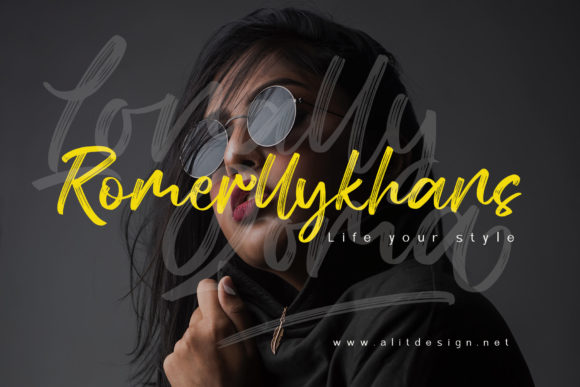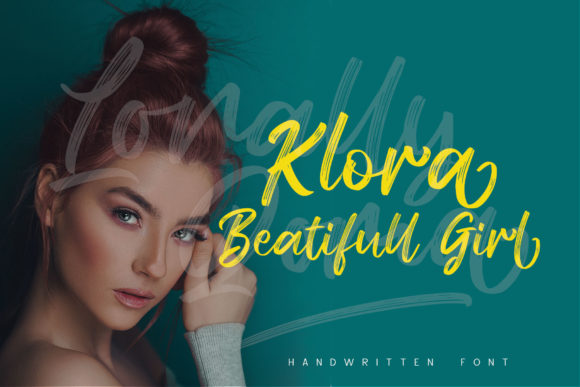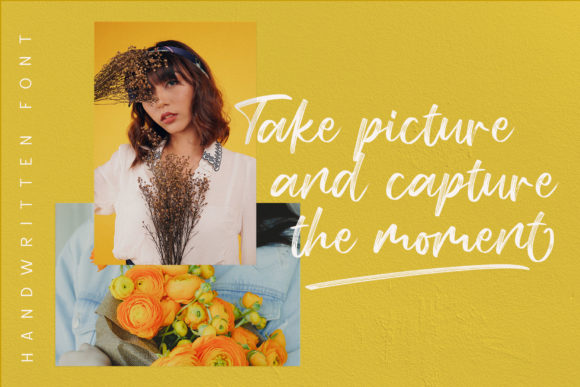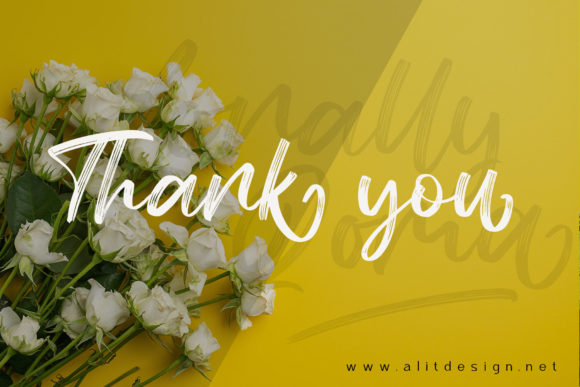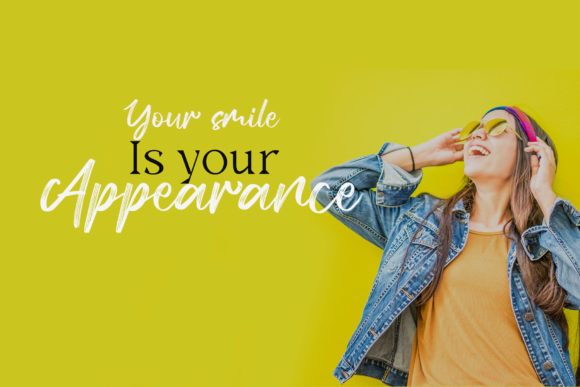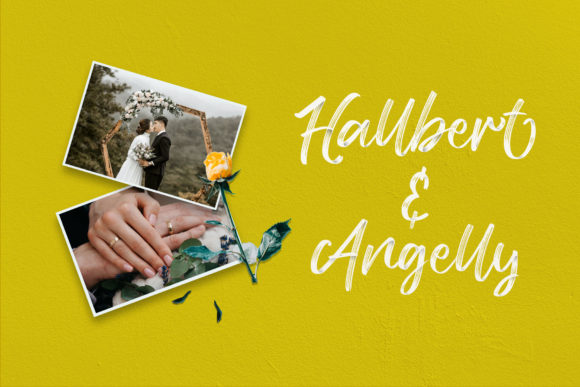
Lonally Qoma Font – Free Download
Introduction to Lonally Qoma Font
Lonally Qoma is a brushed and beautiful handwritten font.
It looks beautiful on a variety of designs requiring a personalized style, such as wedding invitations, thank you cards, weddings, greeting cards, logos and so on This font is PUA encoded which means you can access all of the glyphs and swashes with ease.
Key Features of Lonally Qoma Font
Why Choose Lonally Qoma Font?
Lonally Qoma Font offers exceptional quality and versatility, making it a valuable addition to your design toolkit. Whether you’re creating for personal projects or commercial use, Lonally Qoma Font delivers professional results.